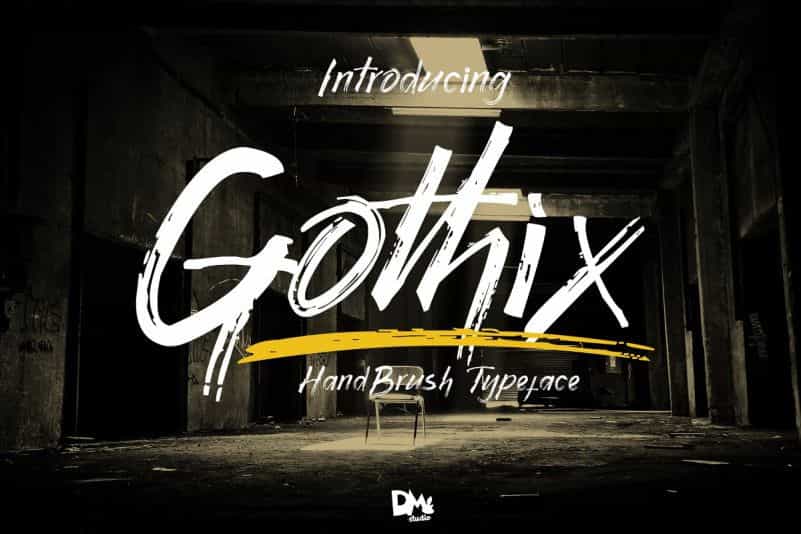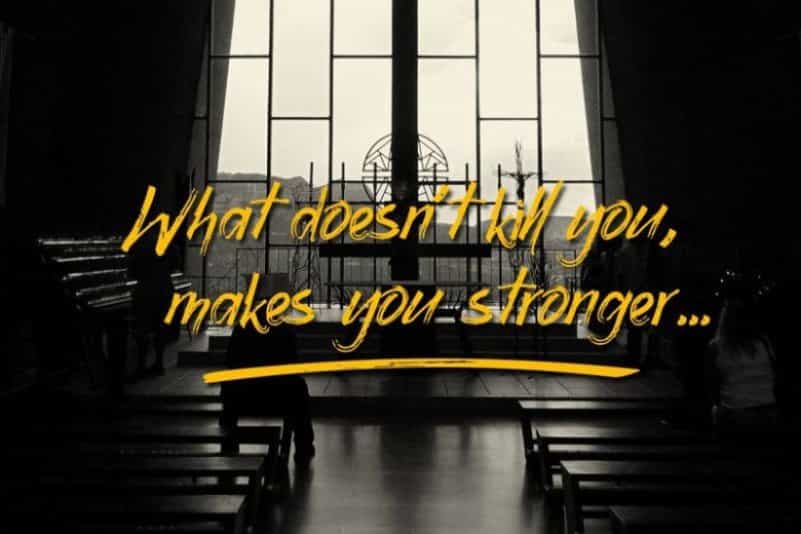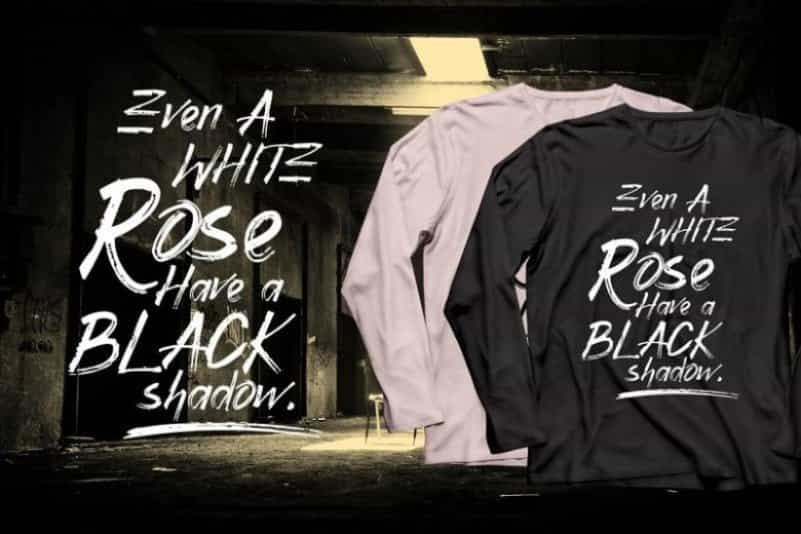
Introducing Gothix Font. This is the creation of Dm. Studio and it has been shared by them. Gothix Hand Brush Font is an artistic handbrush-texture typeface. This font is the perfect tool for those who need to have something that looks like it was hand-written, just as if you were using a real brush. Perfect for the logos, branding, wall arts, digital arts, posters and t-shirt printing design as well as packaging.